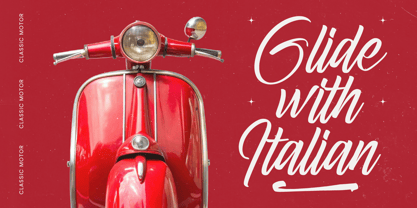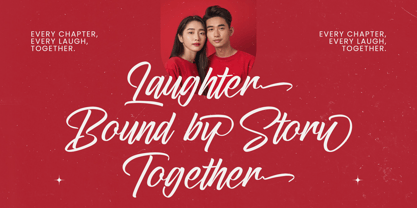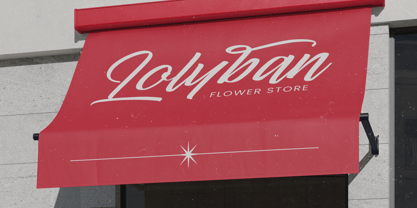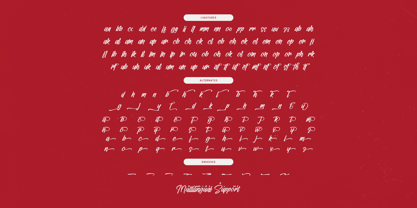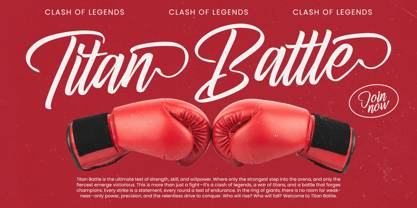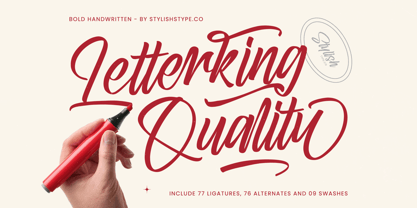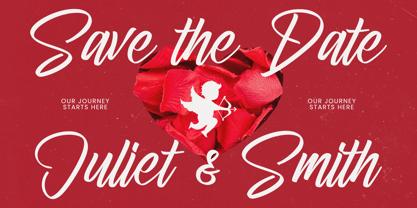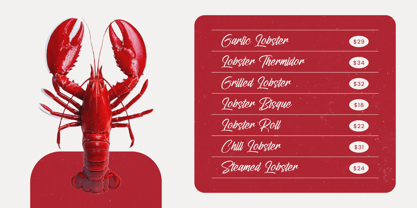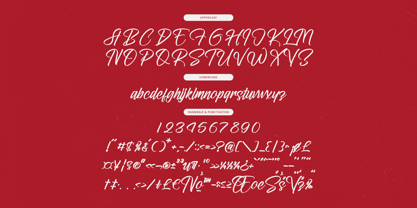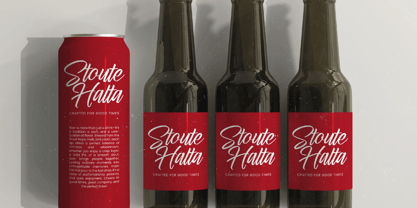
Letterking Quality
by Stylishtype Studio
The Letterking Quality Font Family was designed by Heru Utama Putra and published by Stylishtype Studio. Letterking Quality contains 2 styles and family package options. More about this family
Letterking Quality - Bold Handwritten Font , from Stylishtype, Suitable for any projects such as: logos, branding projects, homeware designs, product packaging, mugs, quotes, posters, shopping bags, t-shirts, book covers, name card, invitation cards, greeting cards, label, photography, watermark, special events, and all your other luxury and beautiful projects that need a Luxury Script taste.